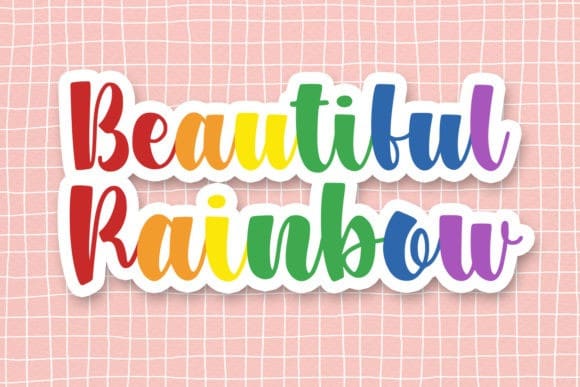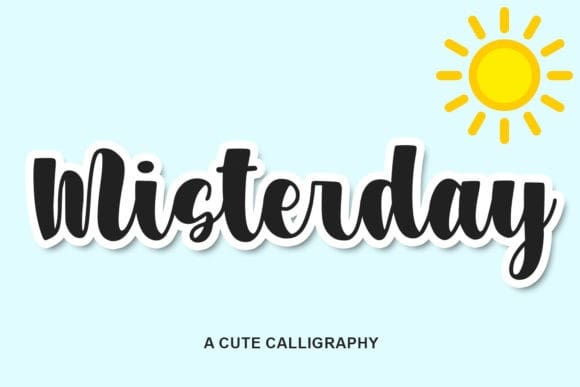
Misterday Script Font
Misterday Script Font, is a trendy and chic looking handwritten font. It looks great on tittle notes, t-shirt designs, quotes, mugs, tote bag designs, cards, banners, social media, and anything of craft projects.